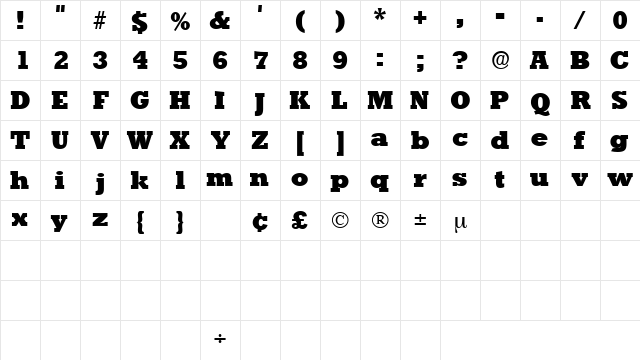
DolmenDisplaySSK Regular Font Preview
DolmenDisplaySSK Regular
Design Context for DolmenDisplaySSK Typeface
DolmenDisplaySSK is built around its visual character rather than neutral utility — its distinctive forms are designed to make an impression at display sizes.
Font Pairing: Pair with a clean neutral sans-serif for body copy to let DolmenDisplaySSK's character lead without overwhelming the composition.
Pro Tip: Treat DolmenDisplaySSK as the centrepiece of your typographic hierarchy. One strong heading set in a decorative face can carry an entire layout.